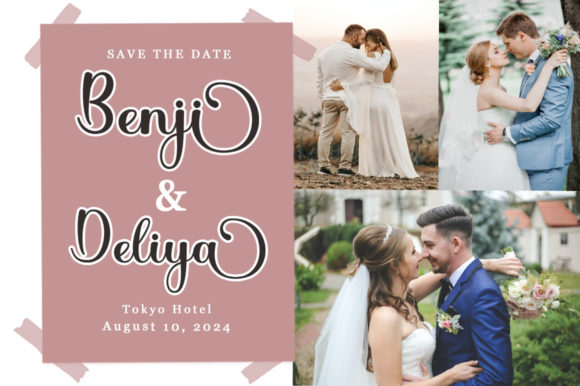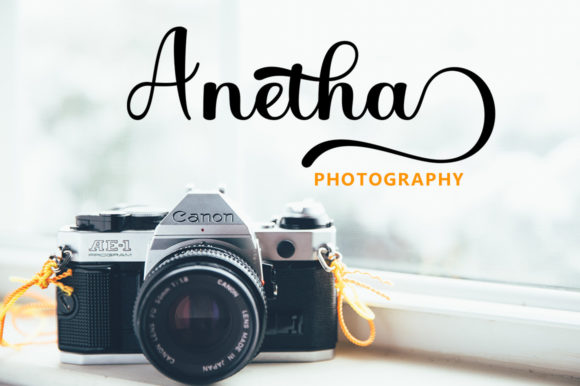
Blue Diamond Font
db-ku.com - Script & Handwritten -- Blue Diamond is an elegant script font with a contemporary atmosphere and impeccable form, inspired by timeless classic calligraphy. This font is PUA encoded which means you can access all of the amazing glyphs and ligatures with ease!